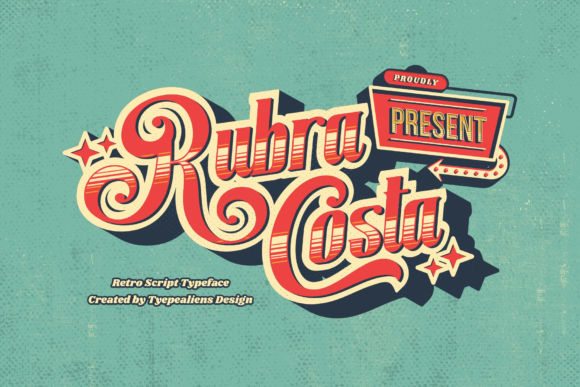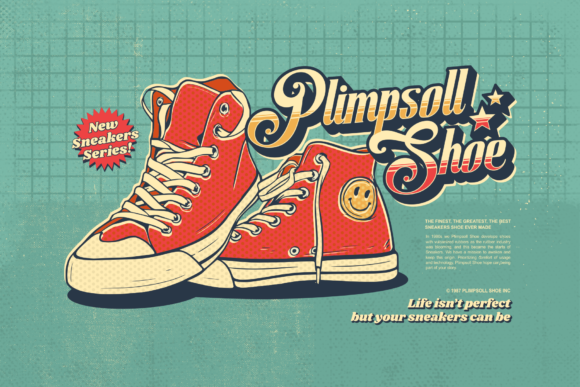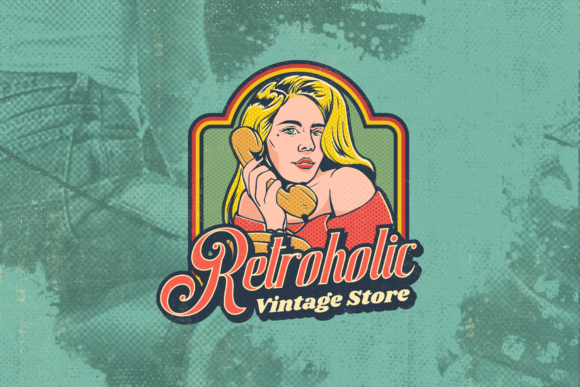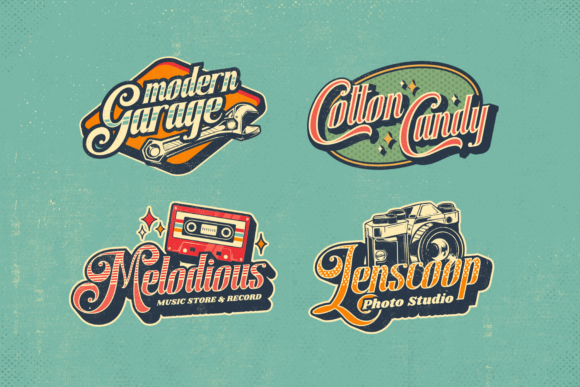
Rubra Costa Font: A Bold Retro Script for Vintage Logo Design
About the Rubra Costa Font
Get ready to be inspired by Rubra Costa Font, a fresh and dynamic typeface for modern creators. Rubra Costa is a vintage styled and thick lettered handwritten font, crafted to give your headlines and logotype projects a stylish touch. This font reads as strong, confident, and dynamic and can add tons of nostalgic character to your designs.
Rubra Costa excels in headline treatments, logos, and short impactful phrases within posters or packaging design. Its strong, confident character makes it ideal for brands projecting vintage appeal, craftsmanship, or a sense of retro-modern style. Avoid using it for extended body text or UI elements; its weight and texture are unsuitable for long reads.
Pairing Rubra Costa with a clean sans-serif like Open Sans for body copy creates a strong visual contrast and enhances readability. For a more sophisticated feel, consider a classic serif such as Garamond or a subtly geometric sans-serif like Montserrat. These pairings temper Rubra Costa’s boldness, maintaining visual interest without overwhelming the design.
The font’s core personality is bold and nostalgic, conveying a sense of vintage confidence and handcrafted quality. It’s best suited for projects that aim for a strong, memorable visual impact.
Rubra Costa Font Usage Examples
Rubra Costa Font Example